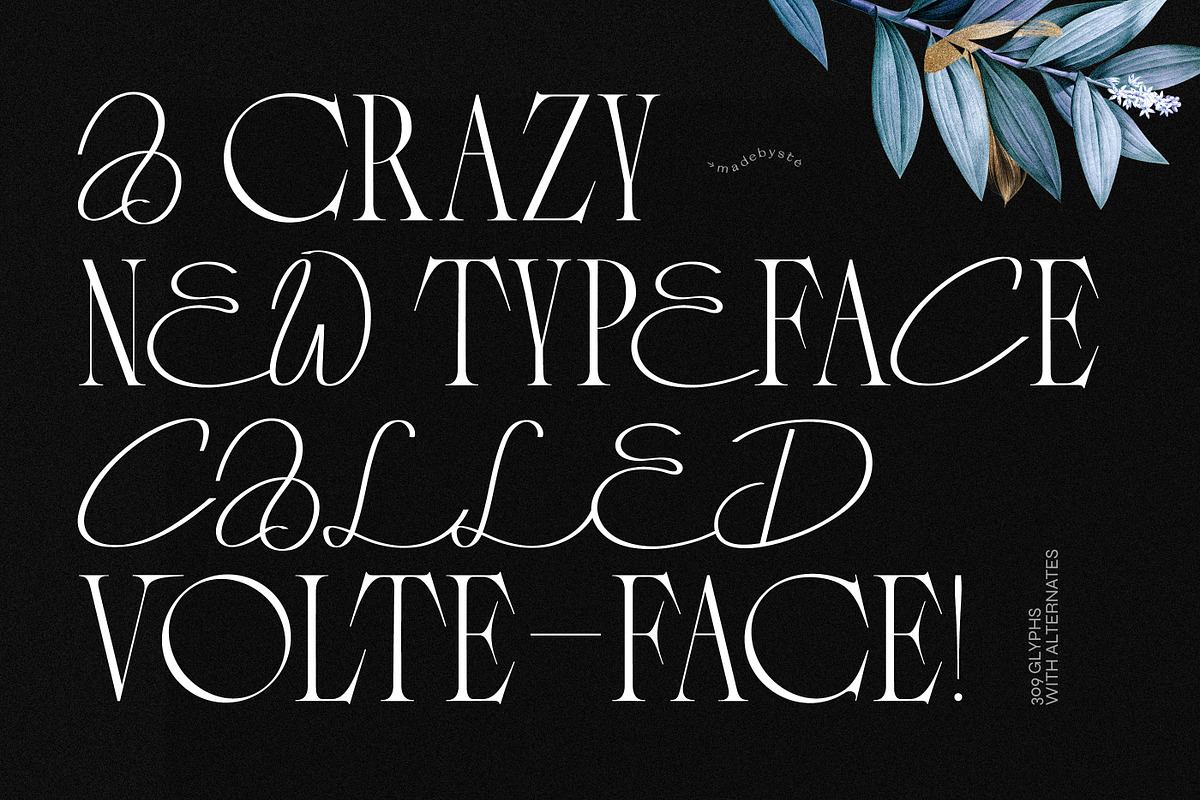
Please note, you must purchase this font for commercial use. However, you can easily download VOLTE-FACE - Serif & Script Font Free Download for personal use and testing purposes. VOLTE-FACE - Serif & Script Font is an elegant and versatile font duo that combines the strong structure of a serif with the fluid, dynamic feel of a script. Perfect for a wide range of design projects including branding, logos, invitations, editorial design, and more, this font pair brings together sophistication and creativity. Whether you're looking for a formal touch or a playful, handwritten flair, VOLTE-FACE - Serif & Script Font Free Download offers flexibility and style for all your typography needs. Download VOLTE-FACE - Serif & Script Font Free Download today and explore its potential before opting for a commercial license.